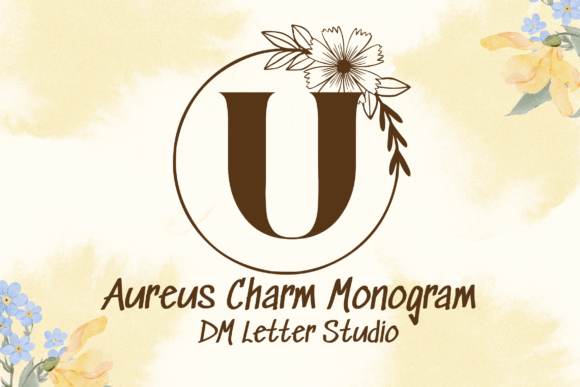
The Elegance of Aureus Charm Monogram Font
Have you ever been in the middle of a design project, and suddenly, you’re stuck on finding the perfect font? I recall a wedding branding project where I needed a monogram font that exuded luxury and sophistication. After hours of searching, I stumbled upon the Aureus Charm Monogram Font, and it was love at first sight! ✨ In this article, we’ll dive into the world of Aureus Charm, exploring its features, uses, and what makes it a standout in the world of typography.
A Personal Review of Aureus Charm Monogram Font
• ✨ Timeless Elegance: Aureus Charm Monogram Font boasts a classic, sophisticated look that instantly elevates any design.
• ✅ Golden Refinement: The font’s subtle golden undertones add a touch of luxury, perfect for high-end branding and wedding designs.
• 🔍 Ornamental Finesse: The intricate details and ornamental flair make it perfect for monogram-focused designs and upscale packaging.
While Aureus Charm Monogram Font is an exceptional font, there are a few minor quirks to consider:
• ⚠️ Limited Lowercase: As a monogram font, it primarily features uppercase characters, which might limit its use for body text.
• 🤔 Glyph Overload: With so many beautiful glyphs and alternates, it can be overwhelming to navigate and choose the right ones.
A Practical Guide to Using Aureus Charm Monogram Font
The Story Behind Aureus Charm Monogram Font
Aureus Charm Monogram Font was inspired by the grandeur of classic Roman forms and the simplicity of modern minimalism. Its creator aimed to craft a font that embodies prestige and charm in perfect balance. The result is a sophisticated monogram font that radiates timeless elegance and golden refinement.
Q: What is the primary use of Aureus Charm Monogram Font?
A: Aureus Charm Monogram Font is designed for luxury branding, wedding identities, upscale packaging, and monogram-focused design.
Q: Can I use Aureus Charm for body text?
A: While possible, Aureus Charm Monogram Font is primarily designed for headlines and monograms due to its limited lowercase characters.
Q: Is Aureus Charm Monogram Font suitable for digital use?
A: Yes, Aureus Charm Monogram Font is optimized for both print and digital use, making it versatile for various design applications.